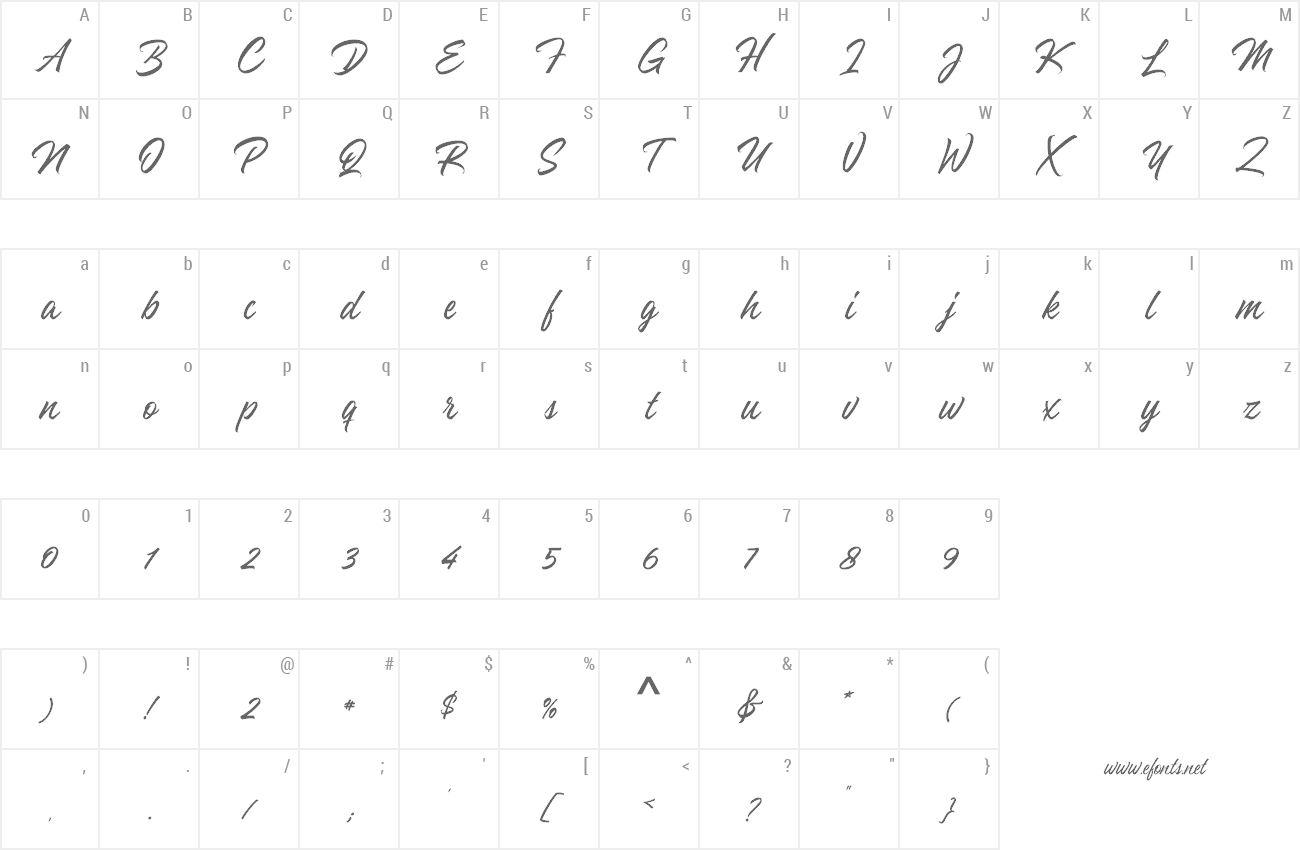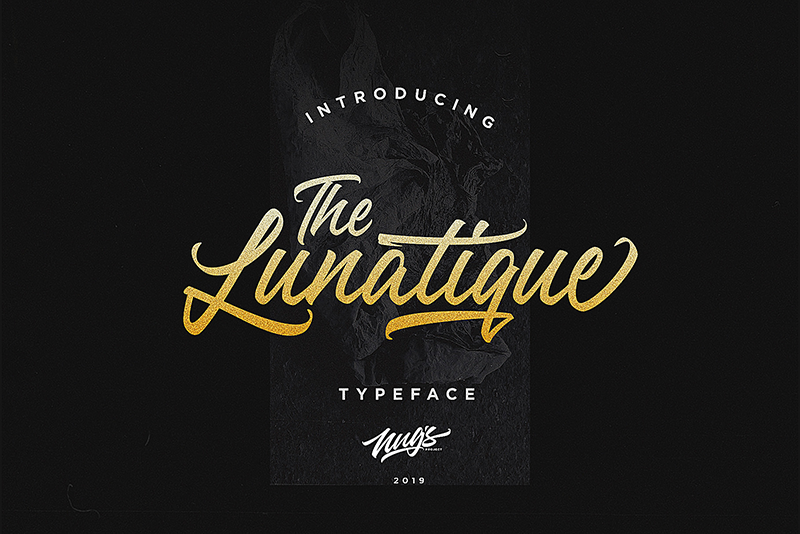
| Font name: | The Lunatique |
| Author: | Nug's Project |
The Lunatique is a brush script font with a dynamic and energetic style. It can used for various purposes such as titles, signatures, logotypes, t-shirt designs, letterheads, signage�s, labels, newsletters, posters, badges, and every other design which needs an unique, striking font. This DEMO font is not contain all of its unicode glyphs, and for PERSONAL USE ONLY. Get the FULL VERSION https://crmrkt.com/Dv58R2 Instagram @ndrienugrie Paypal account for donation : ndrienugrie@gmail.com Thanks !! Nug�s Project |